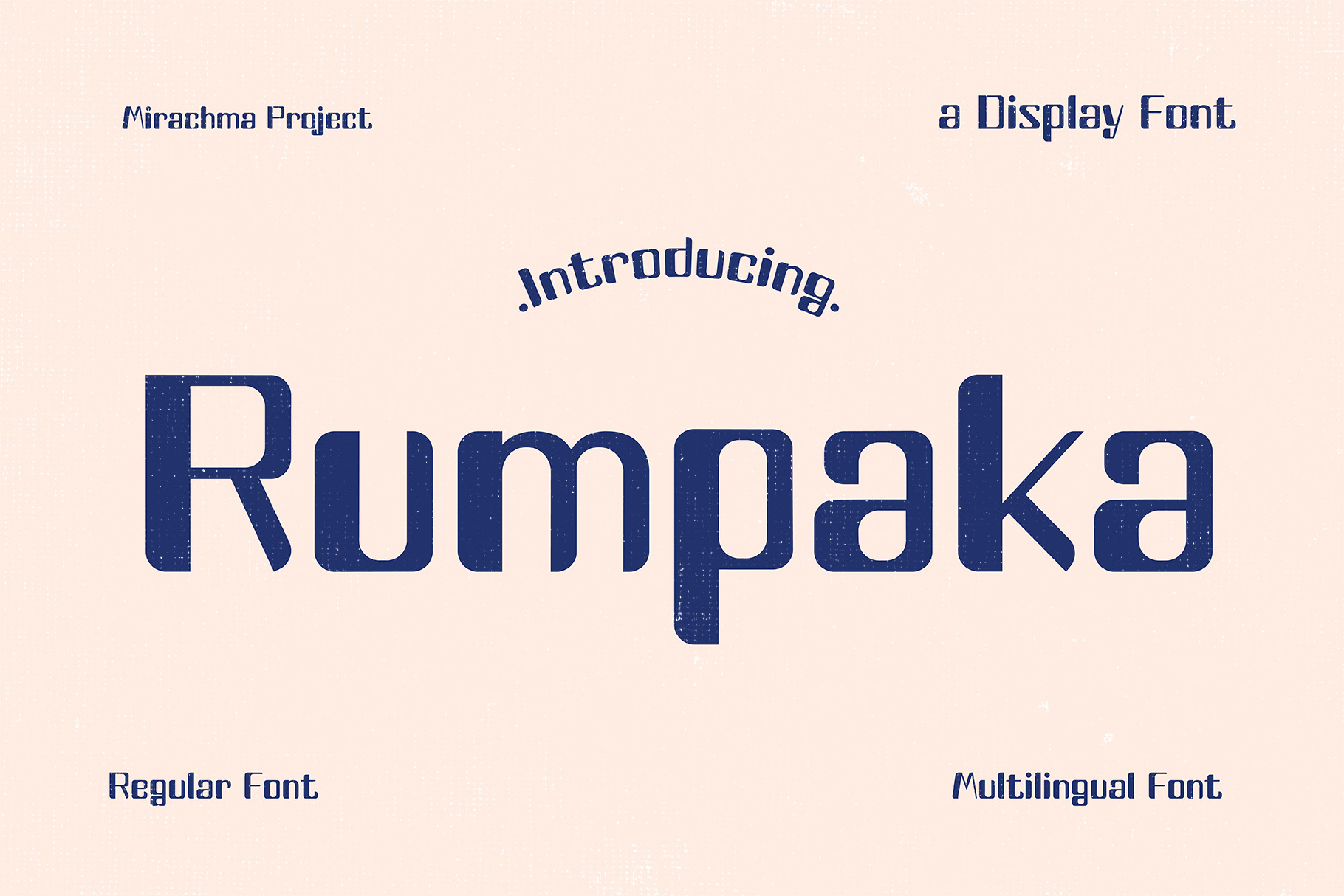
Rumpaka - Display Font
For your information, Rumpaka is a Sundanese term for song lyrics, similar to “lyrics” in English, and is often found in traditional Sundanese songs. It also has another meaning, namely a literary work that is generally in the form of poetry. For me, fonts are beautiful works of art, like Rumpaka. They serve to beautify, clarify, and build visual beauty in a text or design. I chose this name because the font I created has a traditional concept. I am from the Sundanese tribe, so I chose this name.